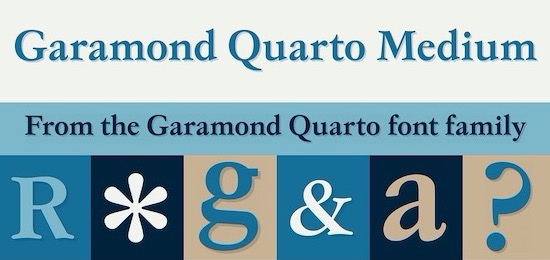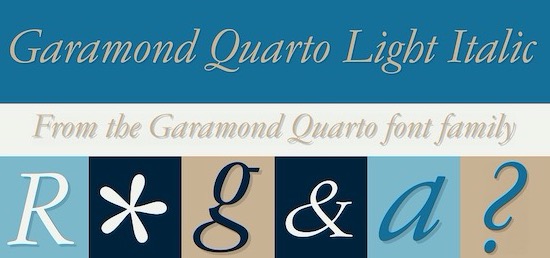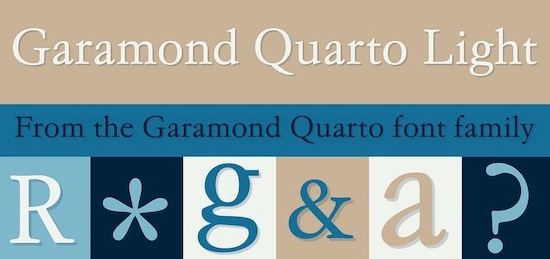
Garamond Quarto is a neat and delicate serif font family that was designed and published by FontSite Inc. along with 3 different styles.
The design is based on Herbert Thannhaeuser’s Garamond No. 4, created in 1955 for the East German Typo Art foundry, but much, much cleaner than URW’s or SoftMaker’s renditions, while also retaining more faithfulness to Thannhaeuser’s design. I’ve added several additional ligatures, superior letters & numerals, true fractions, and stacked fractions. It’s a very interesting text and display font.
Garamond Quarto Serif Font